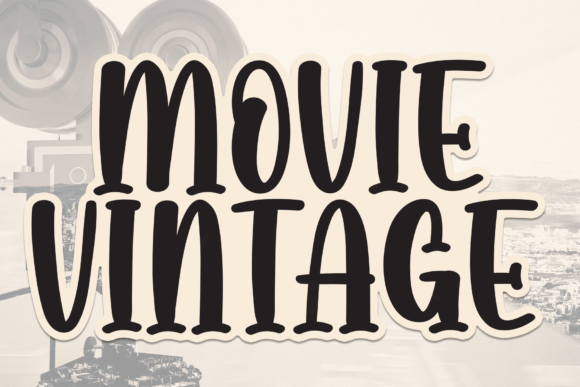
Embark on a cinematic journey, where handwritten memories find their voice through the captivating Movie Vintage Font! This enchanting script font, crafted by the artistic hand of william jhordy, invites you to create stories that resonate with charm and elegance. Let Movie Vintage Font add a personal touch to your designs, bringing warmth and playfulness to every word you write.
With its elegant strokes and whimsical curves, Movie Vintage Font captures the essence of classic cinema posters and vintage love letters. Its meticulously designed characters dance across the screen, evoking a sense of nostalgia and timeless charm. Embrace the allure of the silver screens and craft designs that exude cinematic grandeur.
Dive into a world where your words take center stage, where the curves of each letter form a harmonious symphony that speaks to the heart. Movie Vintage Font breathes life into wedding invitations, turning them into cherished keepsakes that capture the joy and romance of your special day. Its versatility extends to cards, posters, and any creative project that demands a touch of elegance and whimsy.
Indulge in the cinematic fairy tale that unfolds with Movie Vintage Font. Its enchanting aura adds depth and emotion to your designs, transforming them into captivating works of art. Experience the magic of handwritten memories, where each word holds the promise of a new story, waiting to be told.